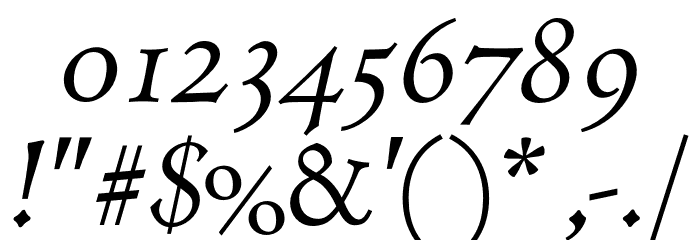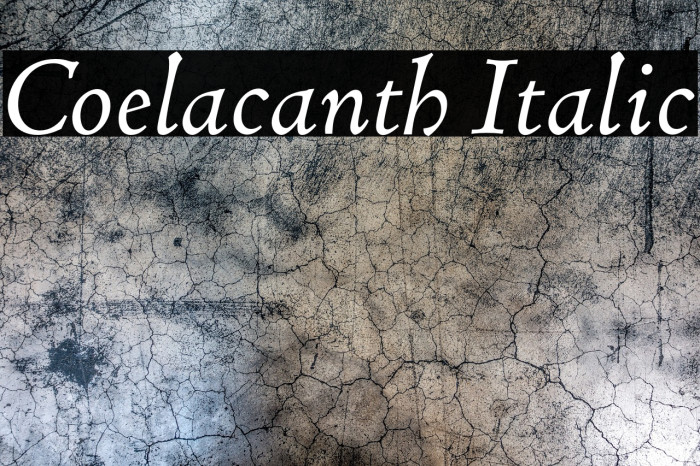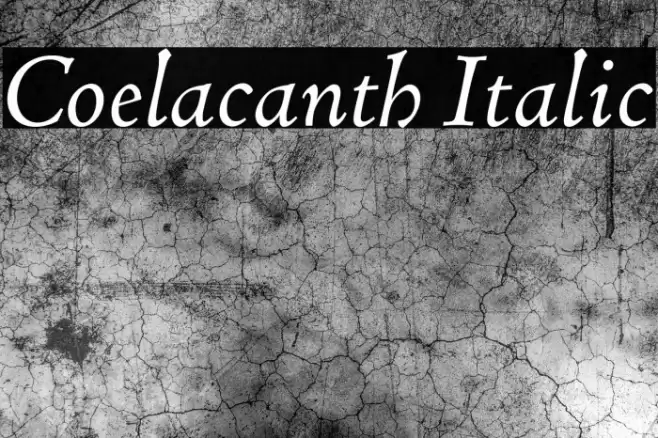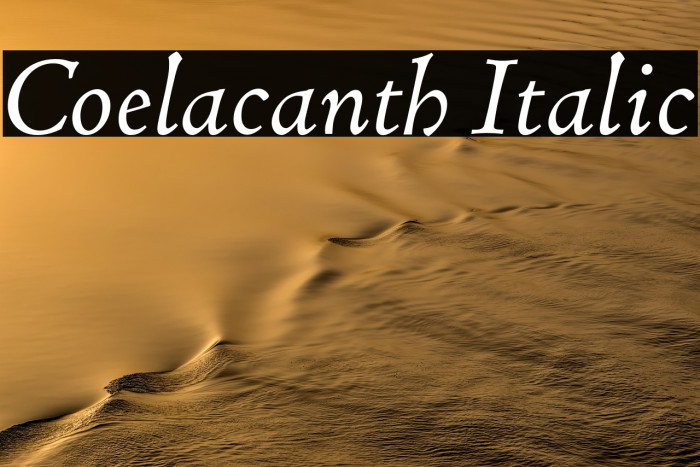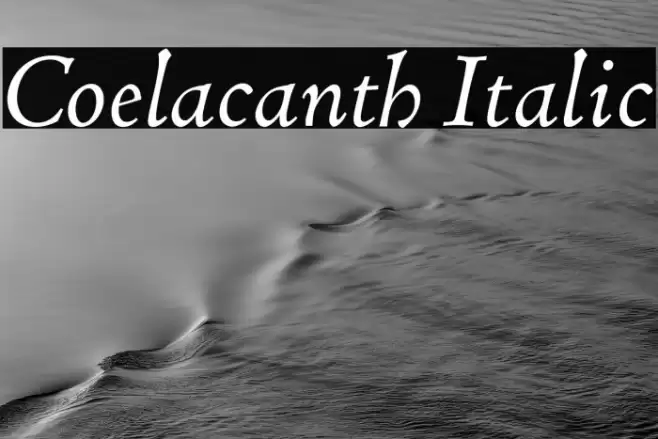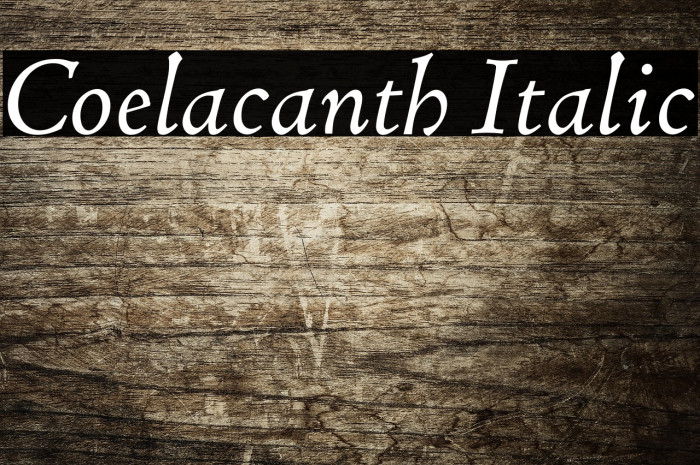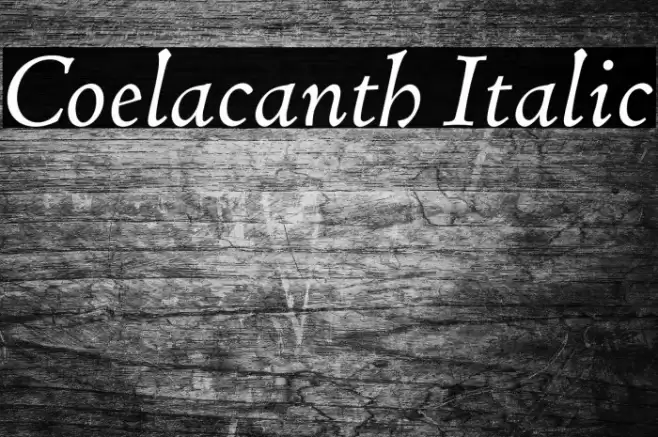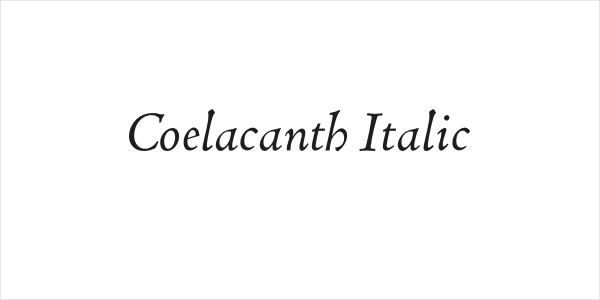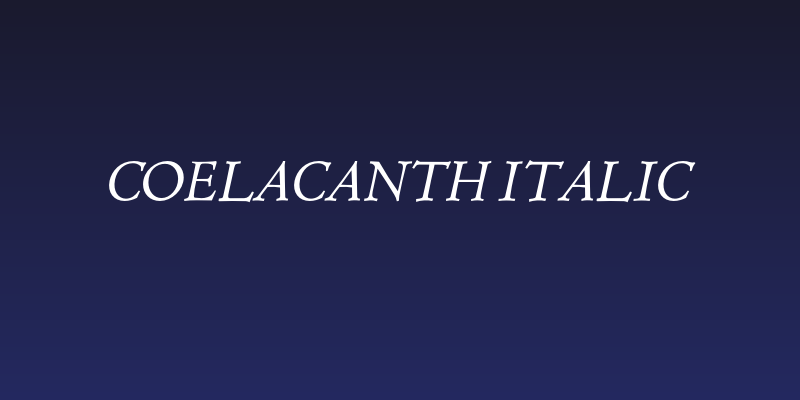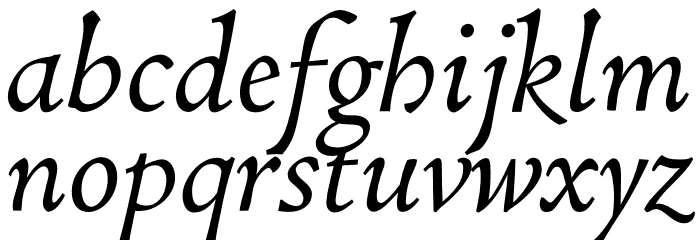
Coelacanth Italic Font
Coelacanth Italic Description
This font features a classic italic style with elegant, flowing lines and a slight slant to the right, giving it a sophisticated and dynamic appearance. The characters are well-defined with moderate contrast between thick and thin strokes, adding to its readability and charm. The uppercase letters have a traditional serif design, while the lowercase letters maintain a graceful and fluid form. Numbers and special characters are consistent with the overall style, ensuring a cohesive look across all text elements.